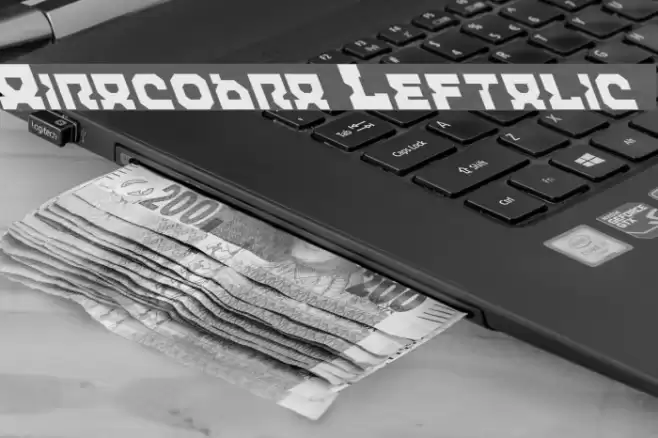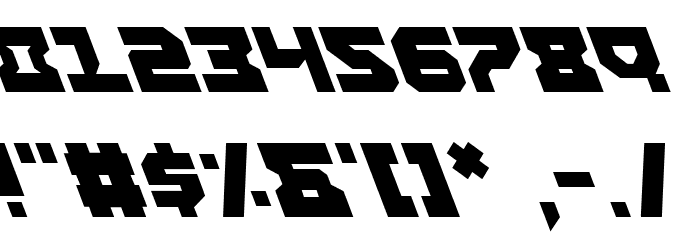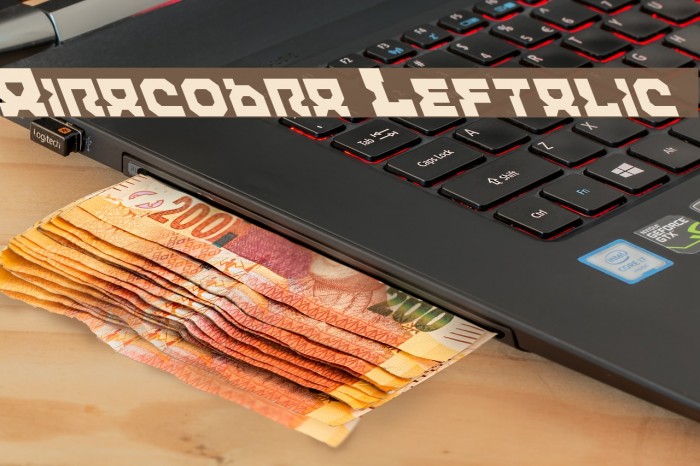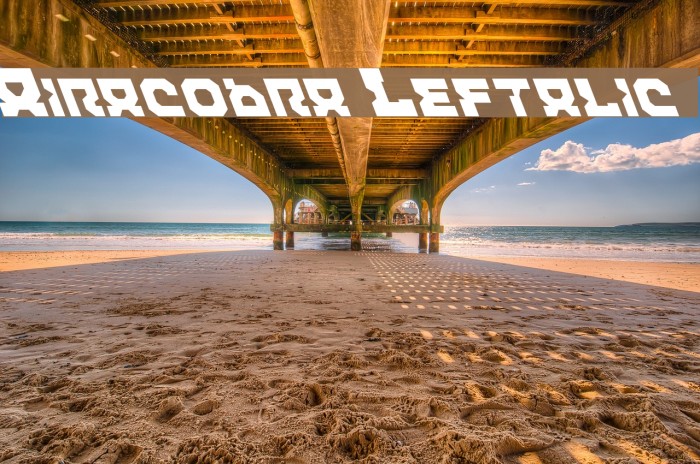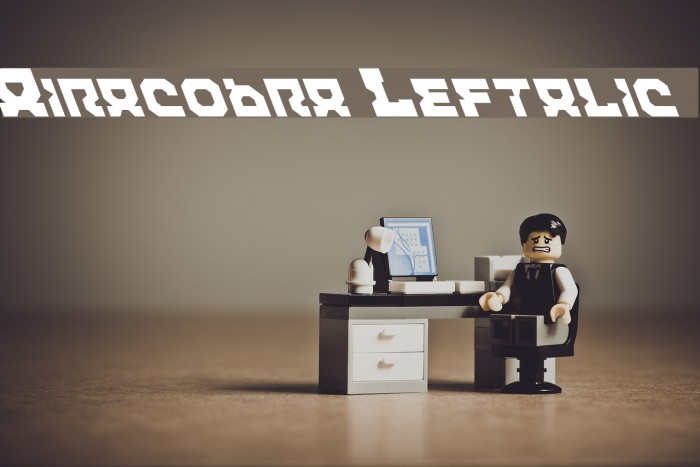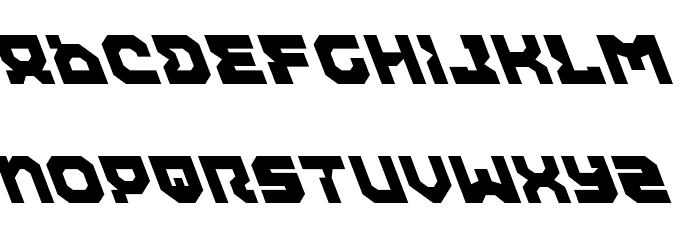
Airacobra Leftalic Font
Airacobra Leftalic Description
This font features a bold, angular design with a distinct geometric style. The characters are sharply cut with a strong presence, making them highly suitable for impactful visual statements. The font leans slightly to the left, adding a dynamic and unconventional twist to its appearance. The thick strokes and blocky shapes give it a robust and industrial feel, while the consistent angularity across all characters maintains a cohesive look. This font is ideal for projects that require a strong, bold statement with a modern edge.
A bold, angular font with a geometric and industrial style, leaning slightly left from Images & Symbols fonts.
- Proposed Projects: Ideal for posters, logos, video game graphics, and branding that requires a strong, modern impact.